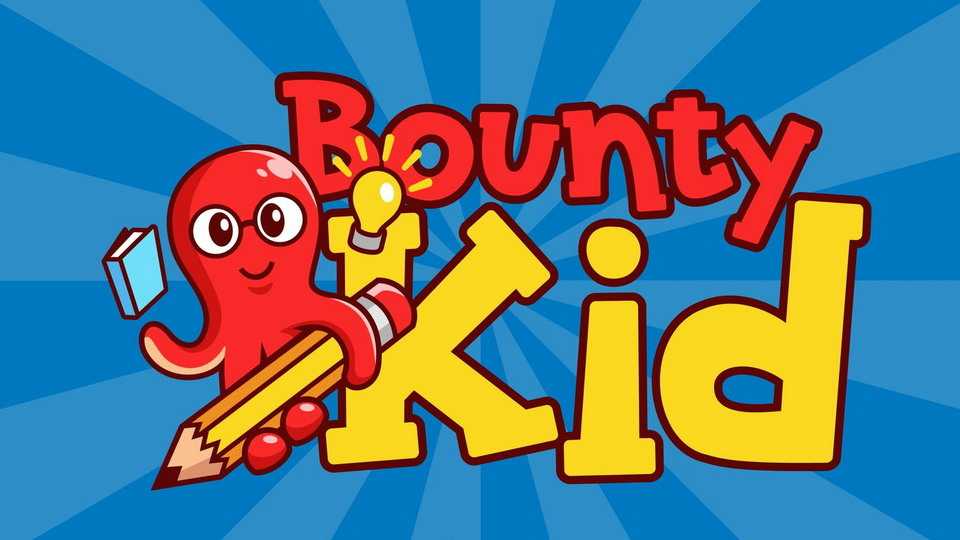
Download Bounty Kid font, a cartoon typeface. Happiness and joy are what children world. And Bounty Kid is all about that. It brings a smile all over the place.